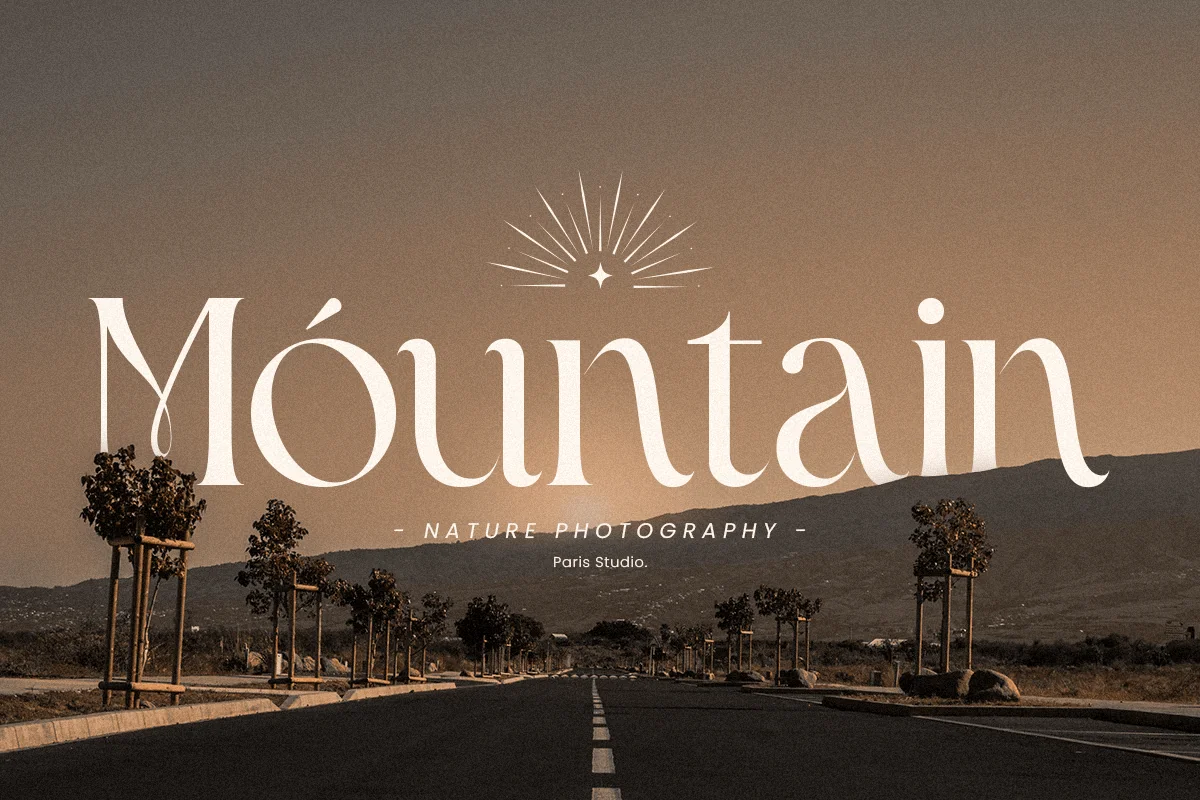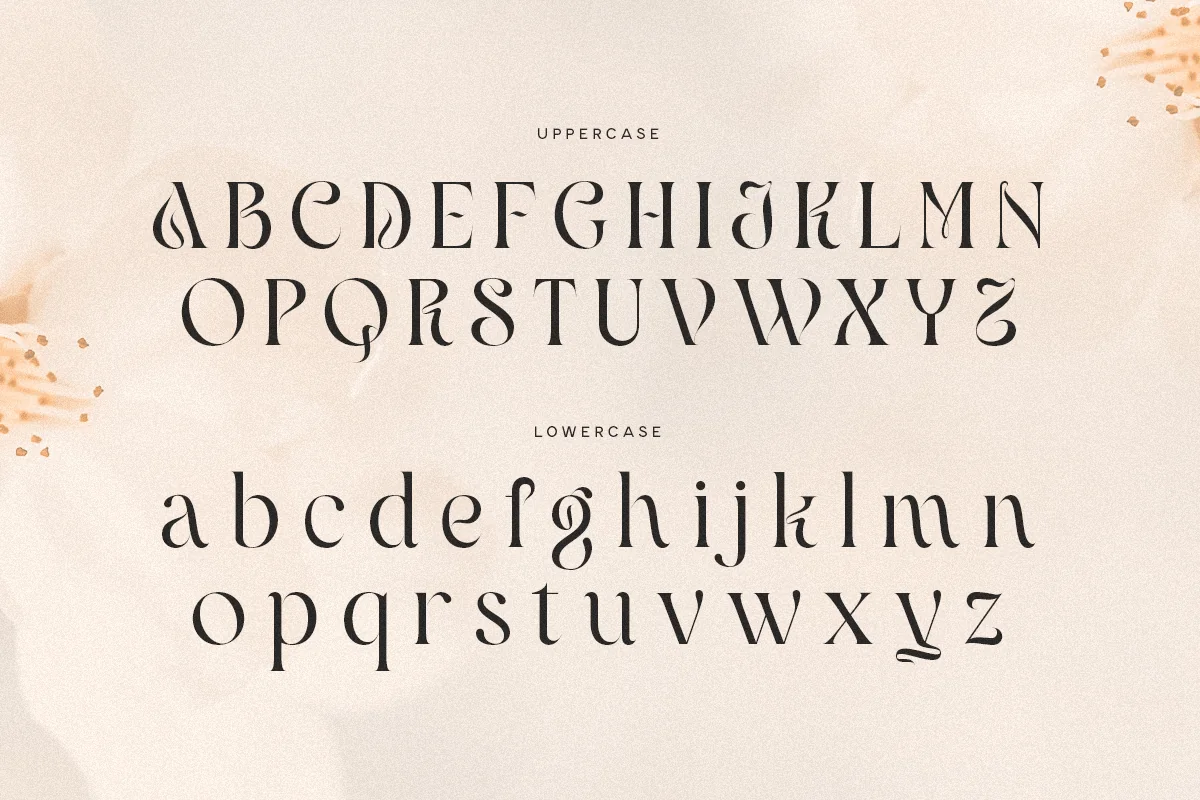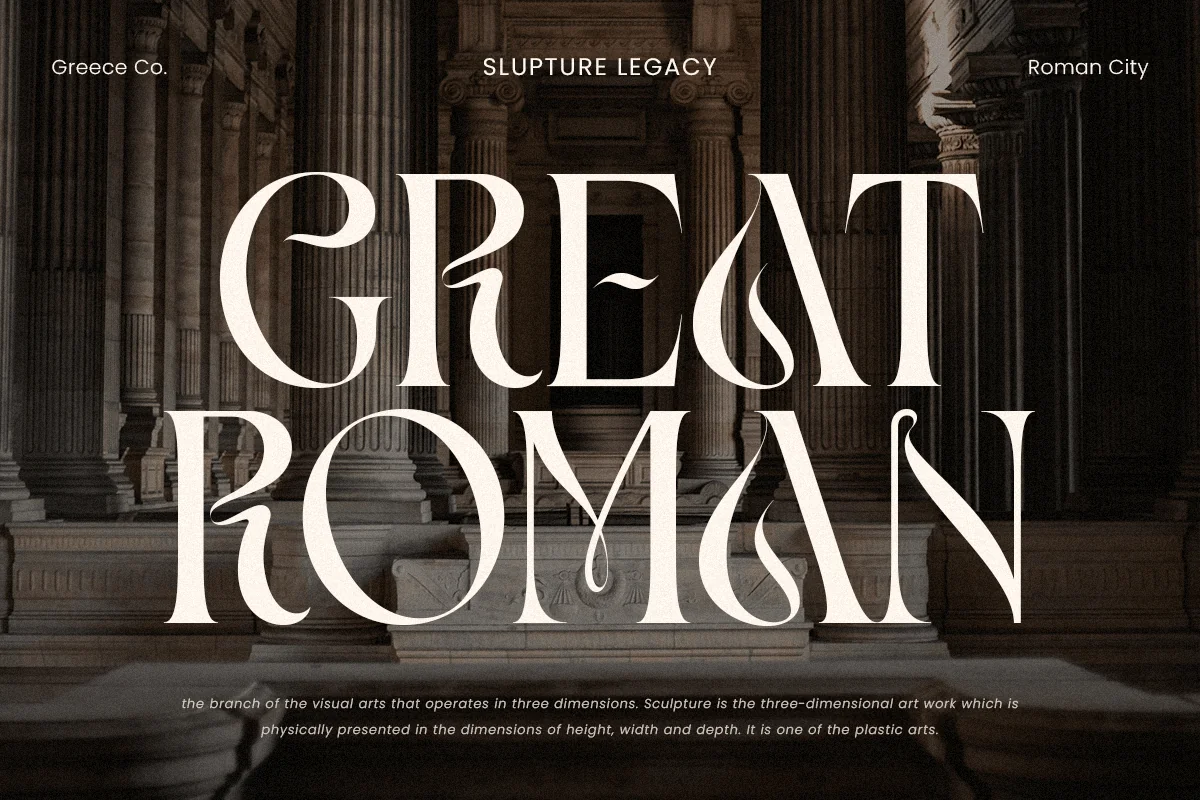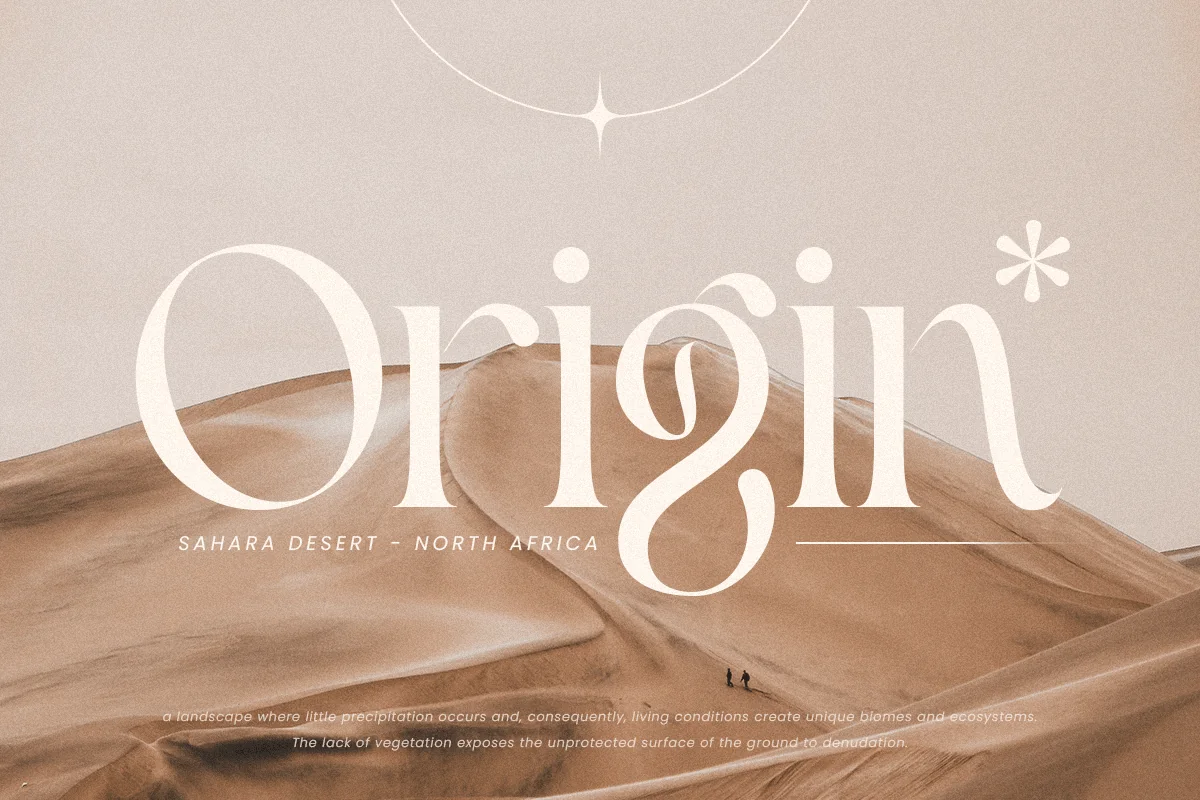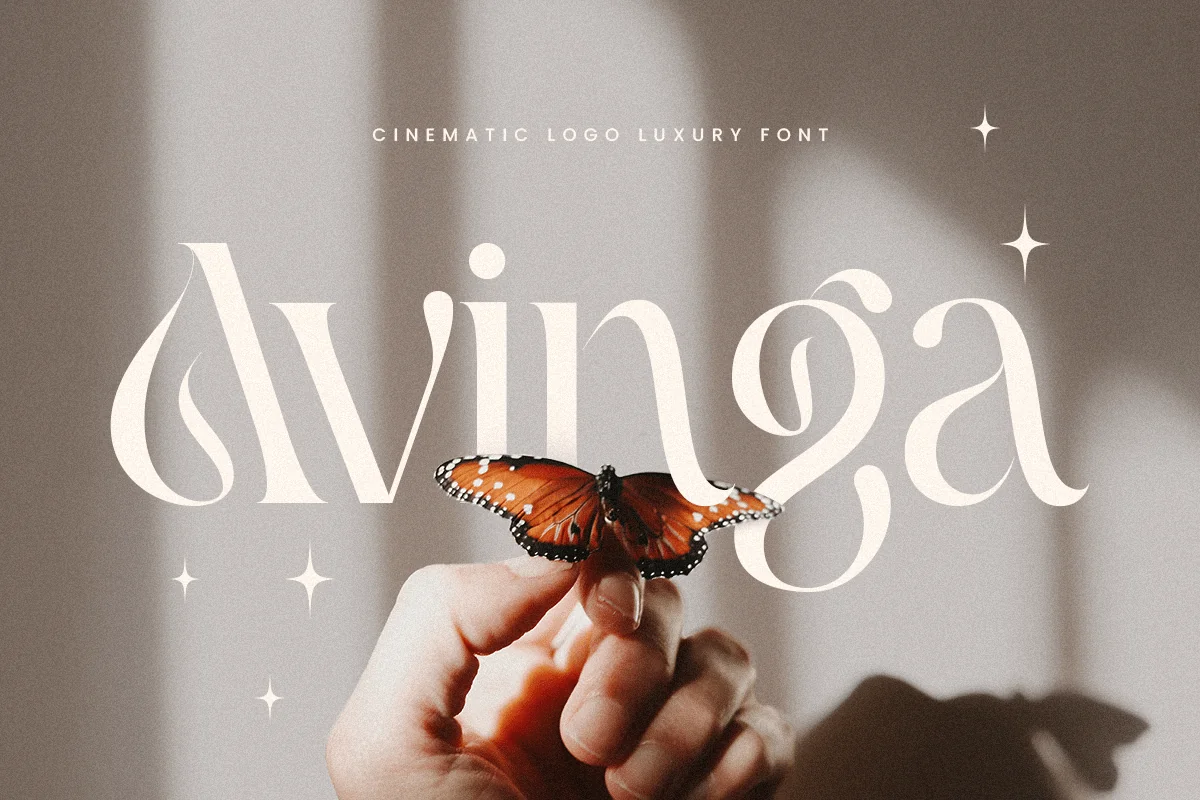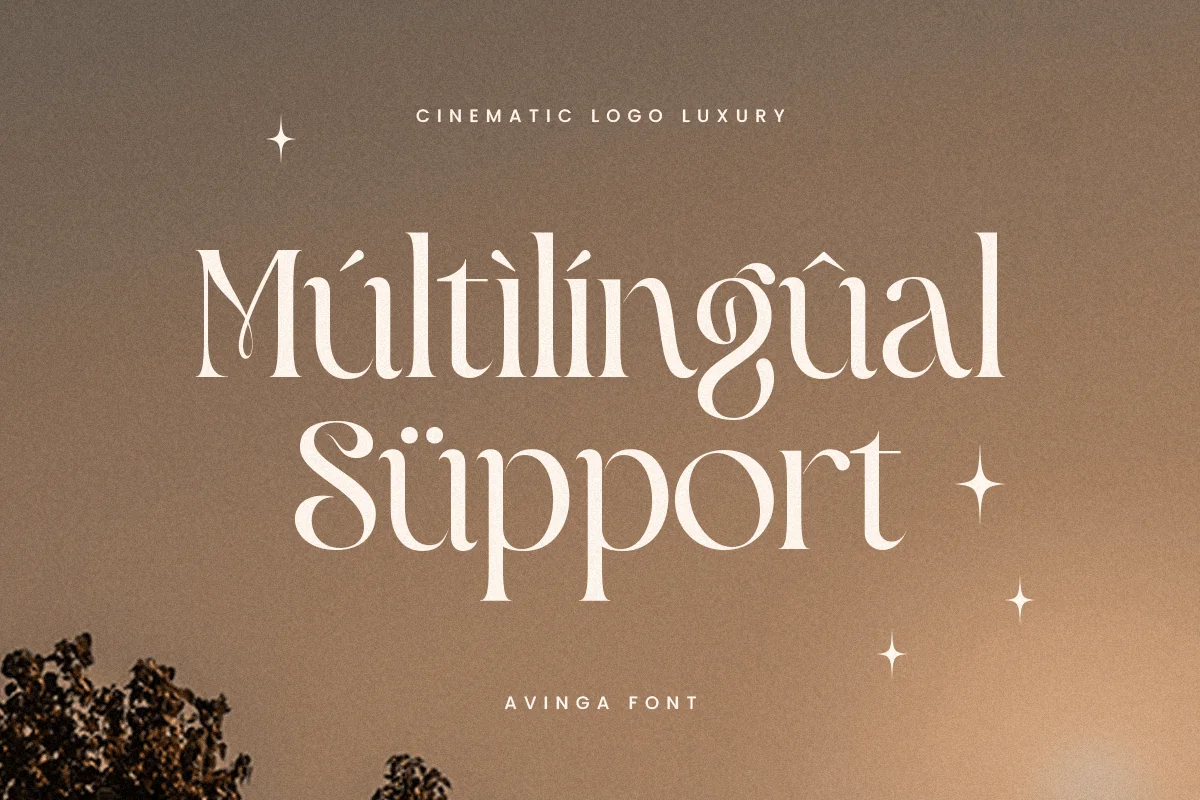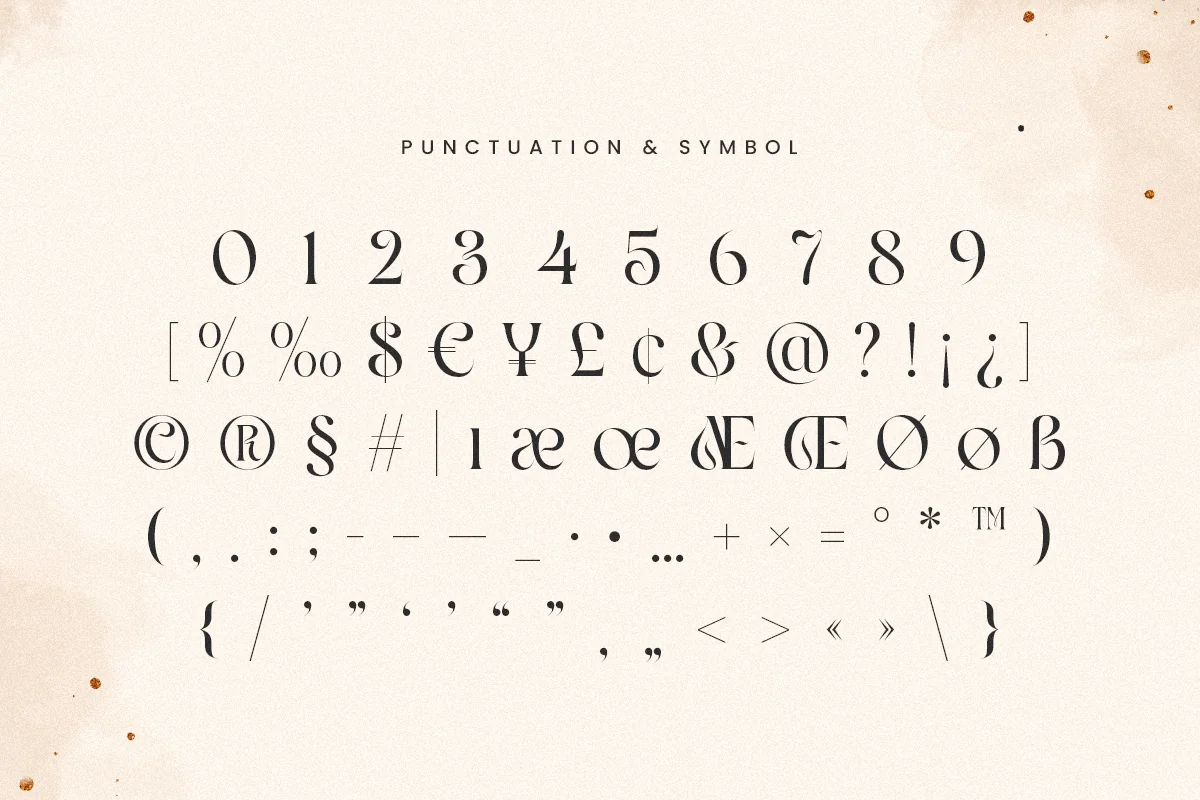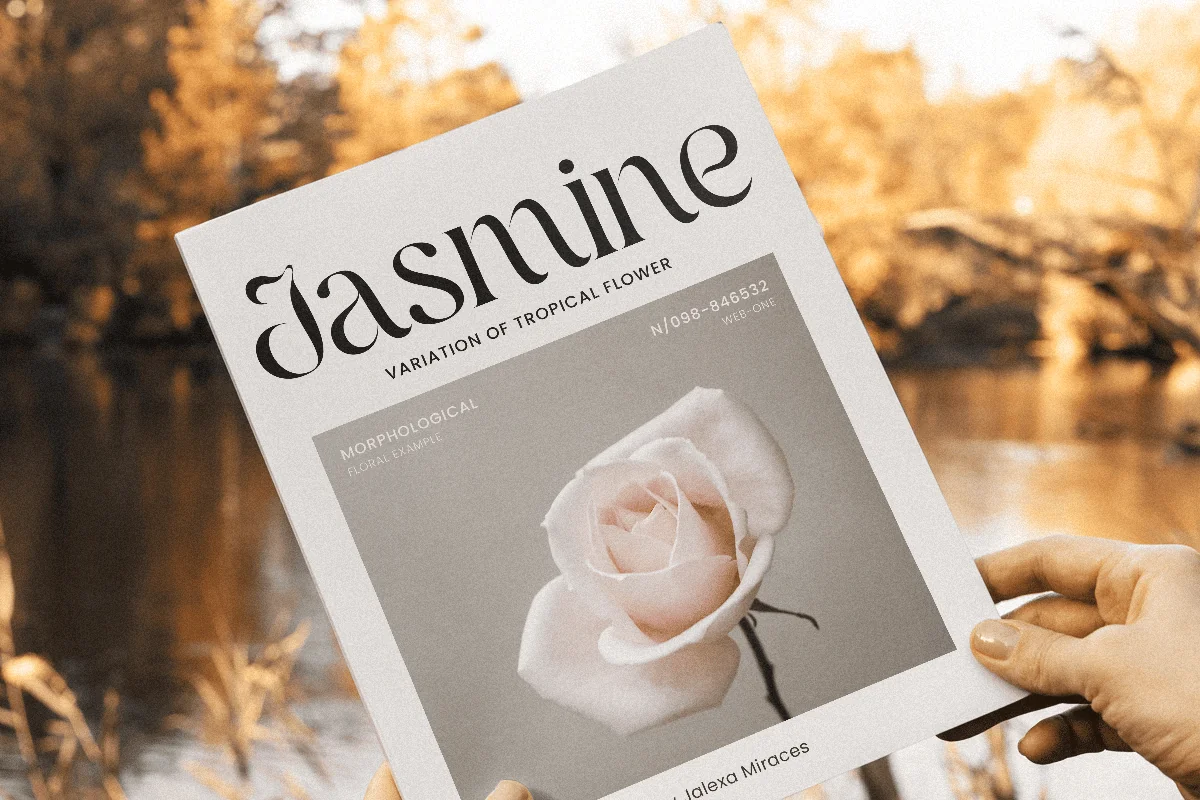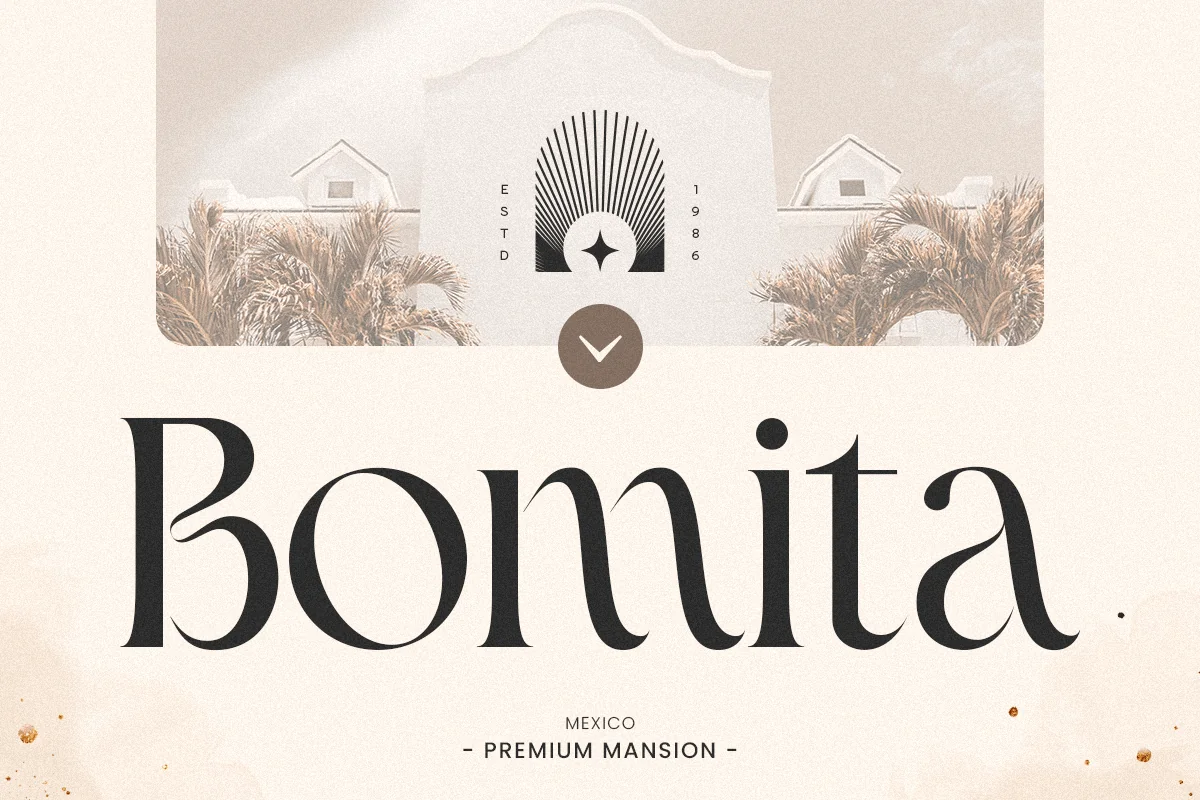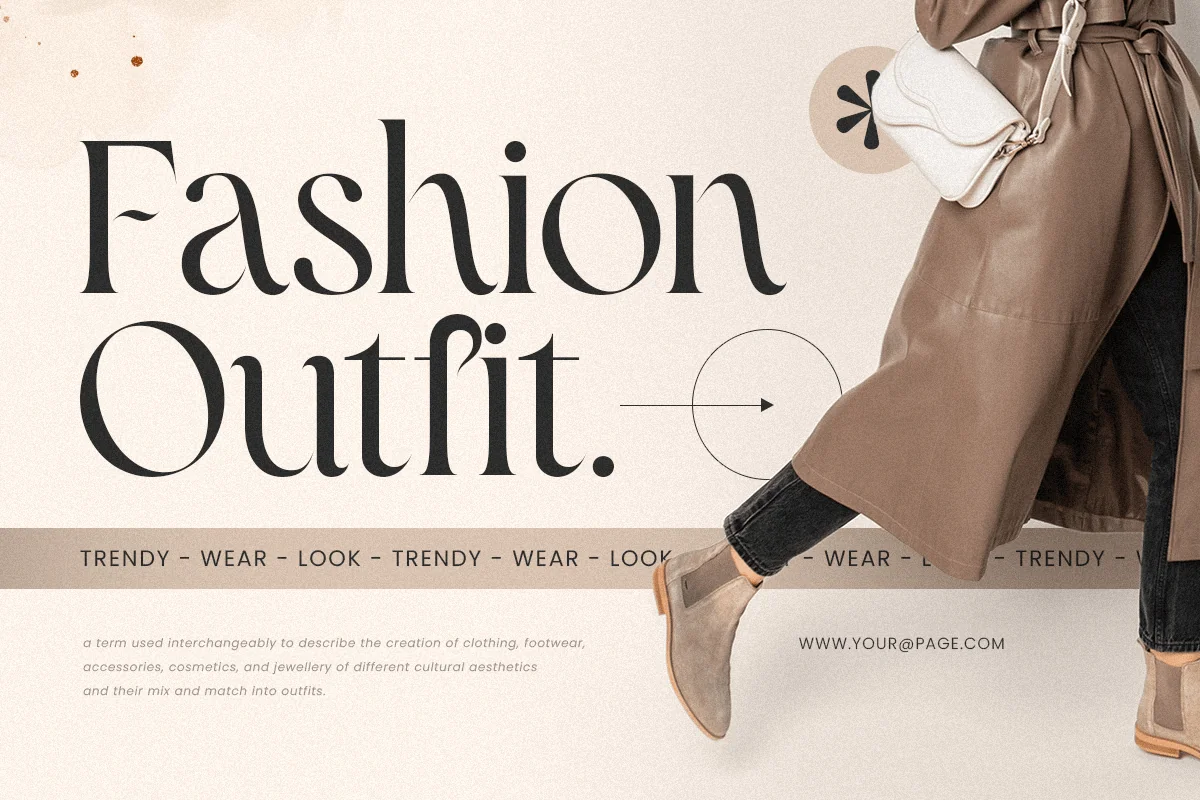
Avinga – Cinematic Logo Luxury Font
Introducing Avinga, a font that combines cinematic elegance with luxurious style, designed to elevate your logos and branding. Perfect for those seeking a sophisticated touch, Avinga ensures your designs exude class and refinement.
The Story Behind Avinga:
Avinga was inspired by the glitz and glamour of the cinematic world. Imagine the golden age of Hollywood, where every design element was crafted to captivate and leave a lasting impression. This font embodies that spirit, offering a blend of elegance and modern sophistication. Avinga is ideal for designers looking to create luxurious and memorable branding materials that stand out.
Avinga Font Features:
- Cinematic Elegance: Stylish and refined, perfect for luxurious and high-end designs.
- Modern Sophistication: Sleek lines and elegant curves that convey a sense of exclusivity.
- Versatile Usage: Ideal for logos, branding, film posters, and elegant stationery.
- High Legibility: Clear and sharp, ensuring your message is communicated effectively.
- Refined Characters: Unique and stylish letterforms that add a touch of glamour to your designs.
- Inspirational Previews: Includes sample designs to ignite your creativity.
Perfect For:
- Luxury Branding: Create memorable and sophisticated logos for high-end brands and businesses.
- Film Posters: Design cinematic posters that capture the elegance of the silver screen.
- Elegant Stationery: Develop stylish business cards, letterheads, and office stationery.
- Marketing Materials: Enhance brochures, flyers, and advertisements with a touch of luxury.
With Avinga, your designs will capture the essence of cinematic luxury and elegance. Whether you’re creating logos, branding materials, or film posters, Avinga provides the perfect blend of style and sophistication. Elevate your design projects with Avinga and make a lasting impression with every piece.